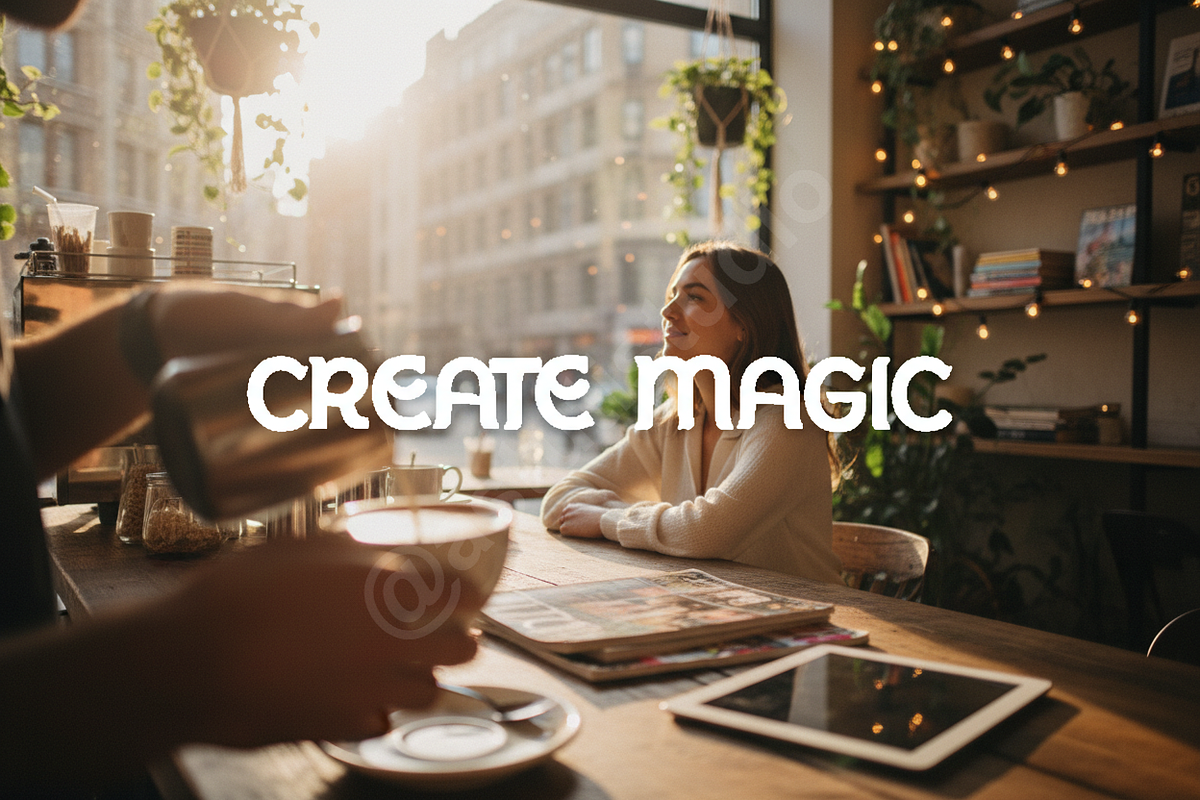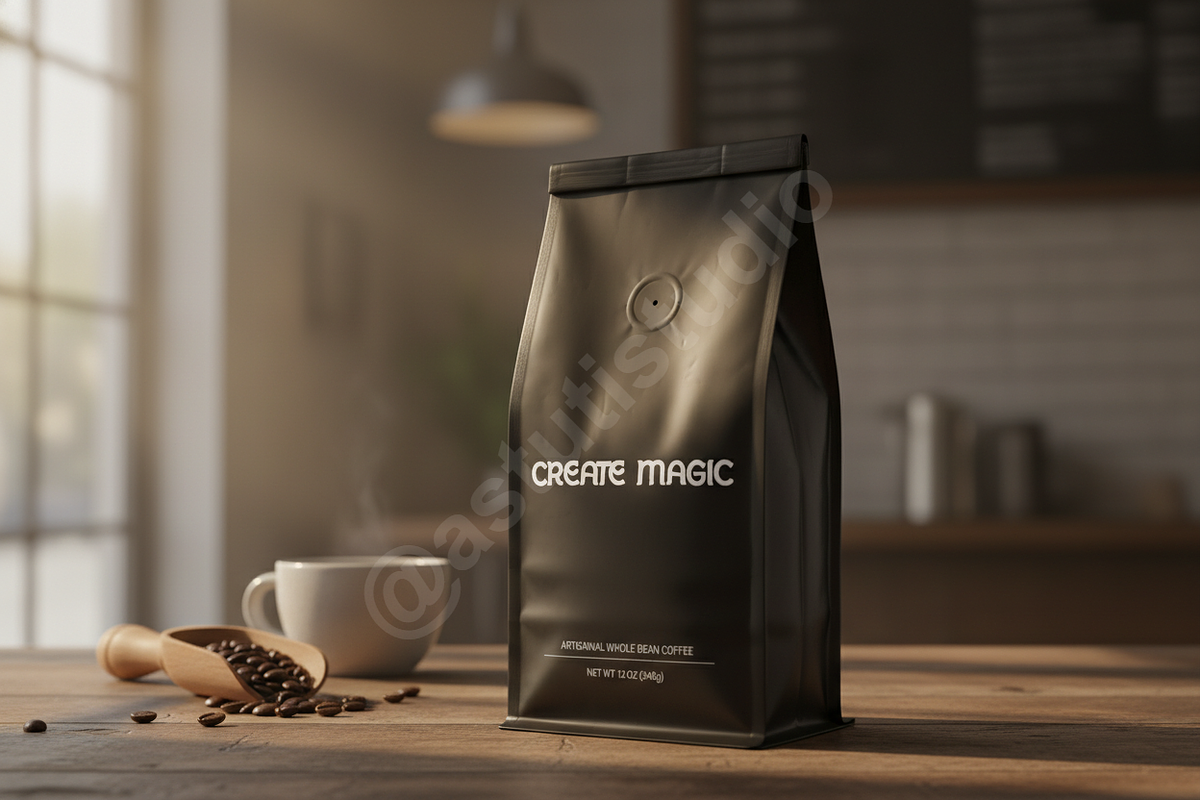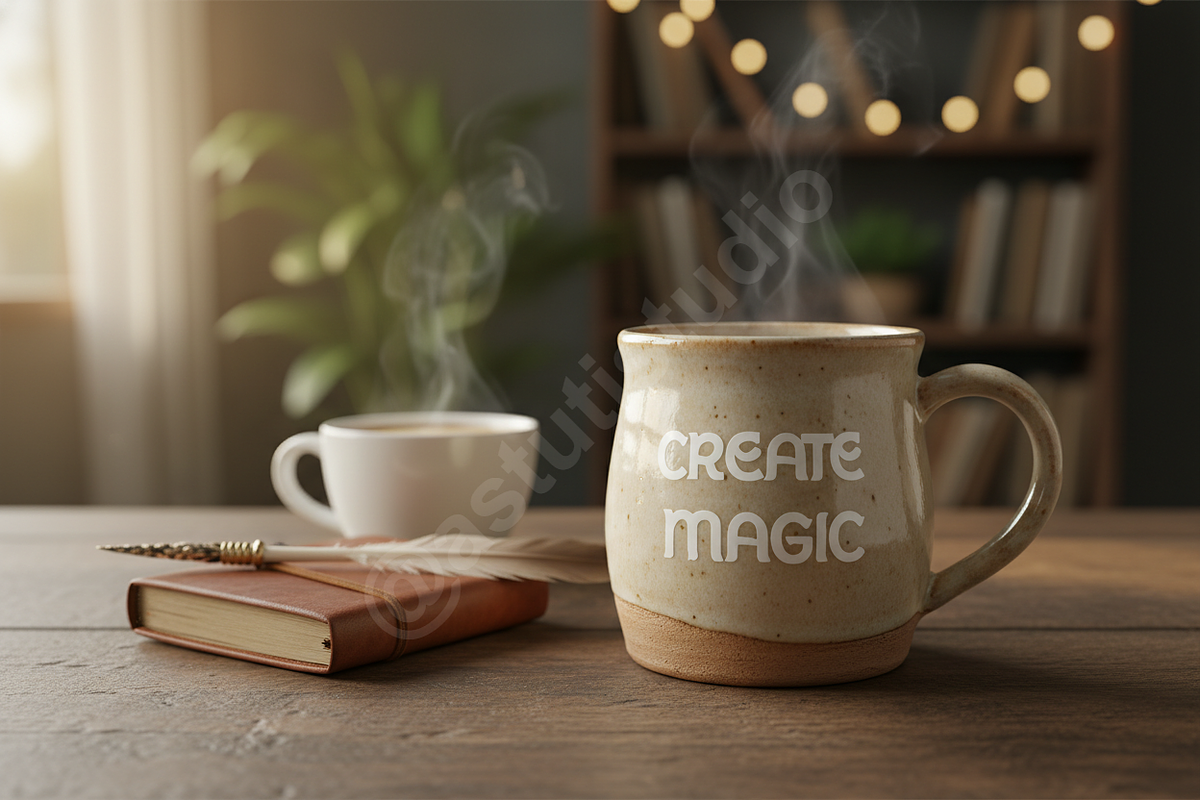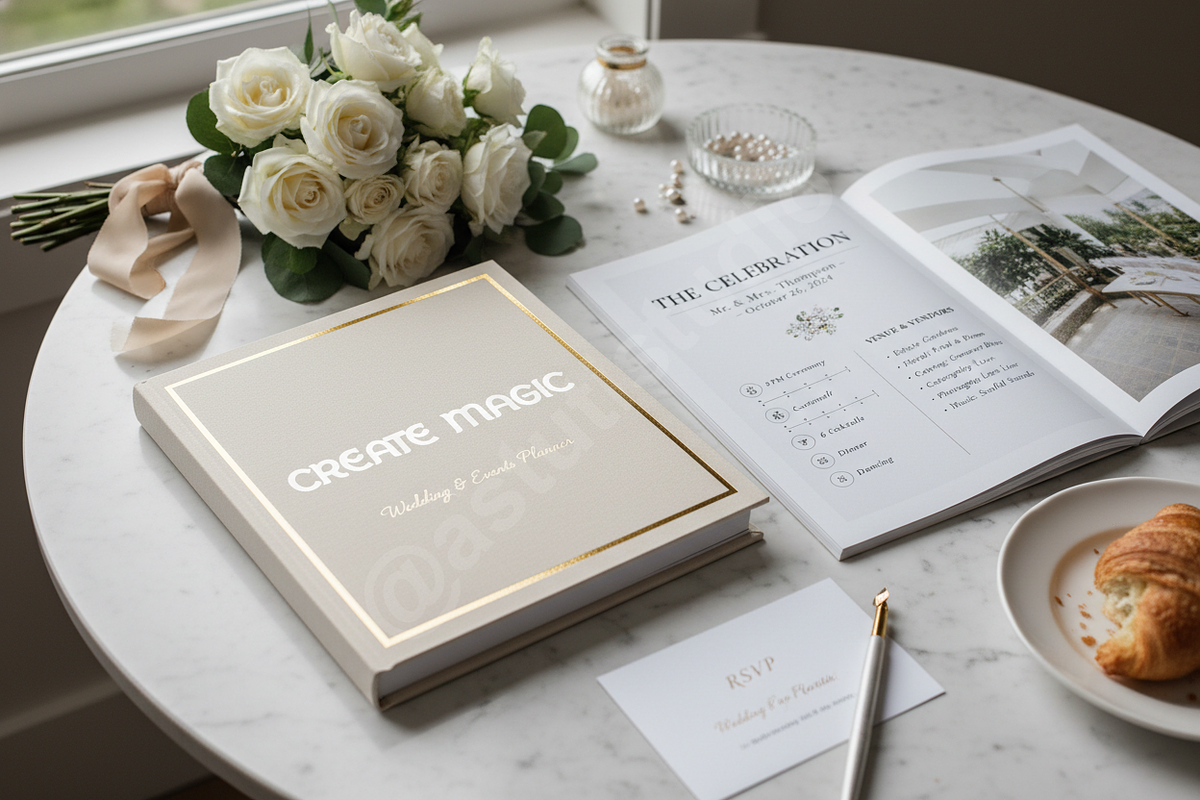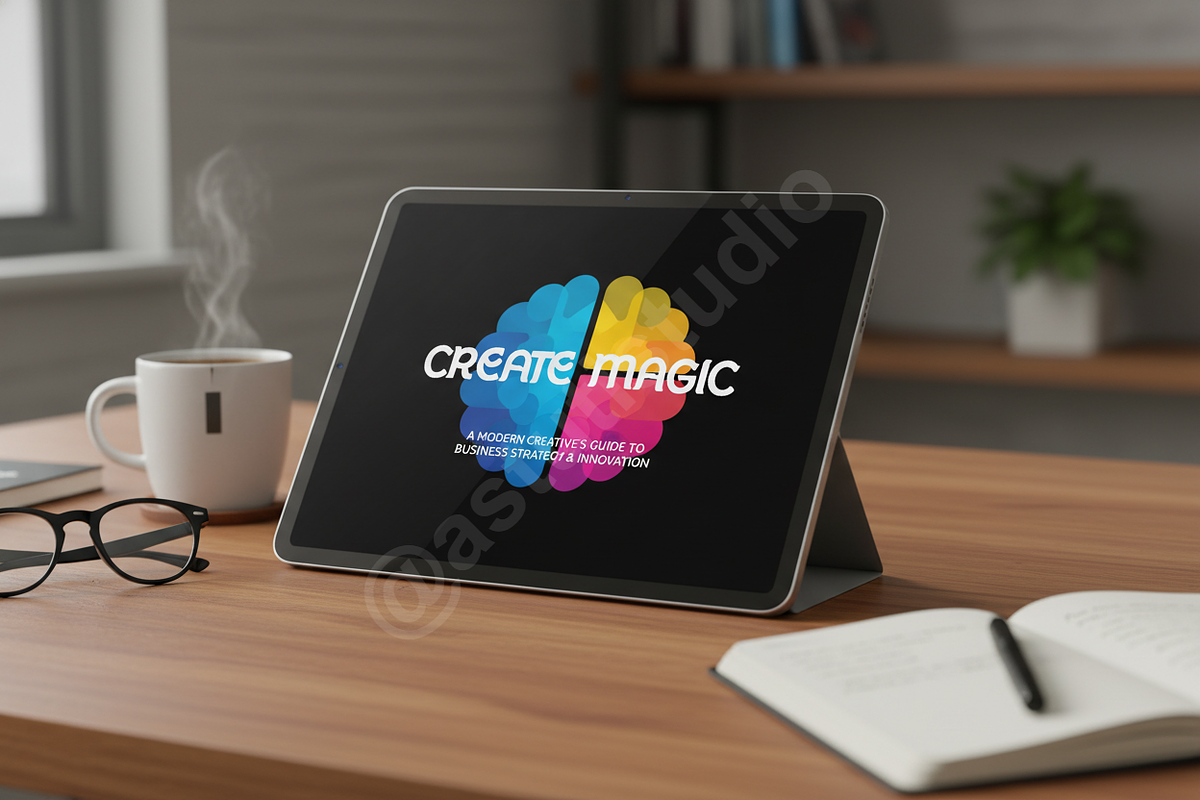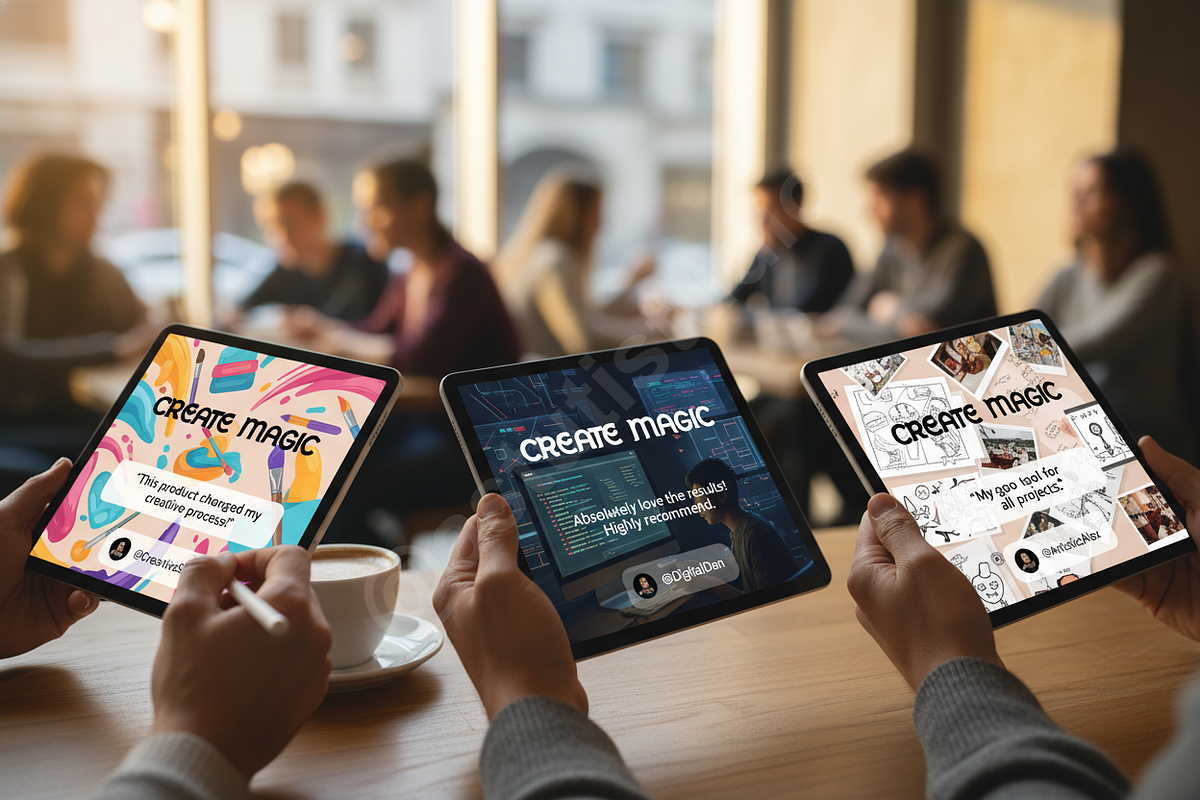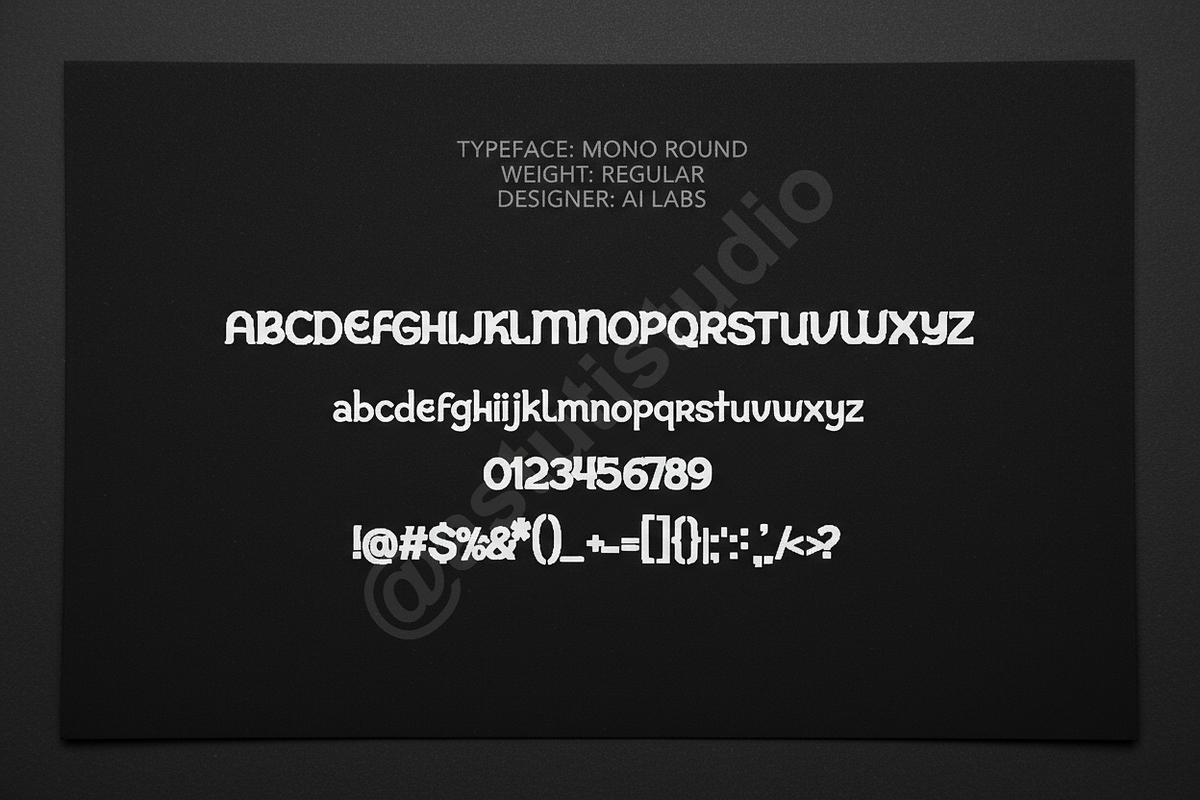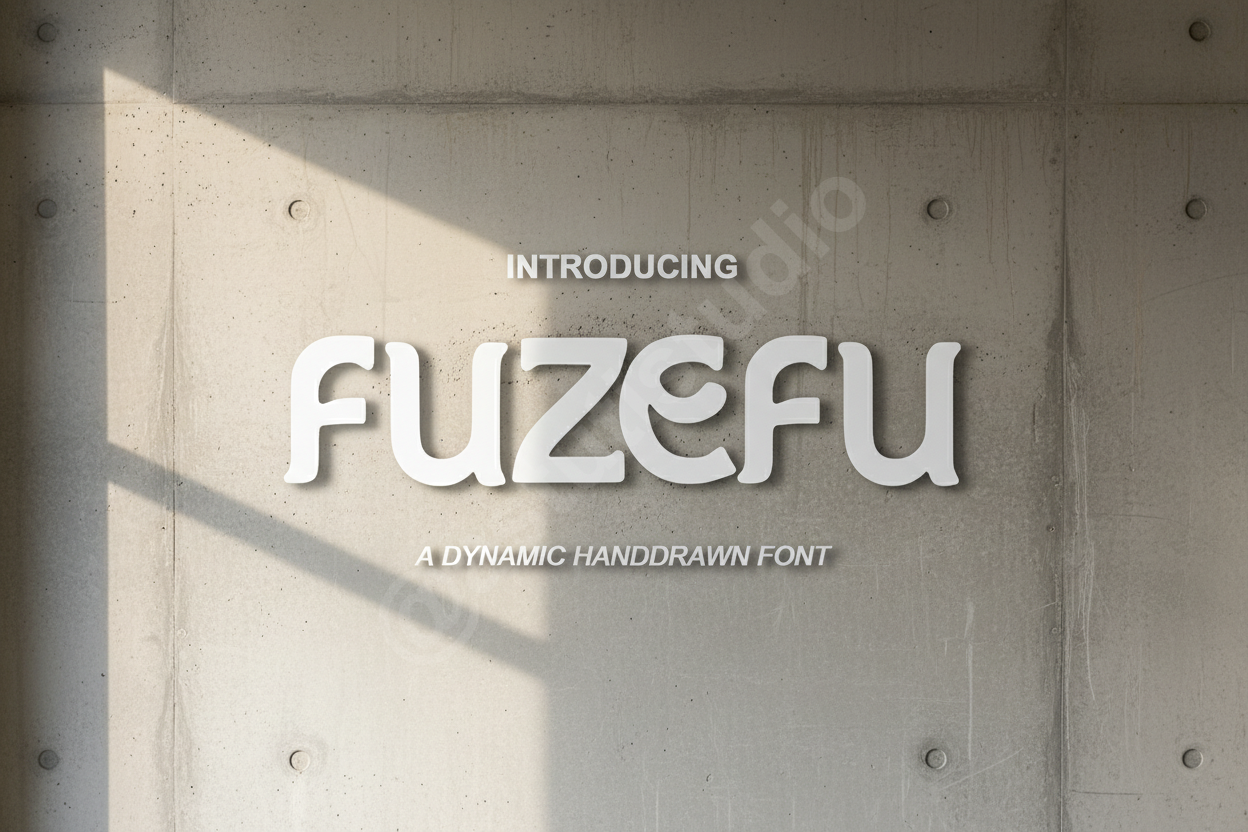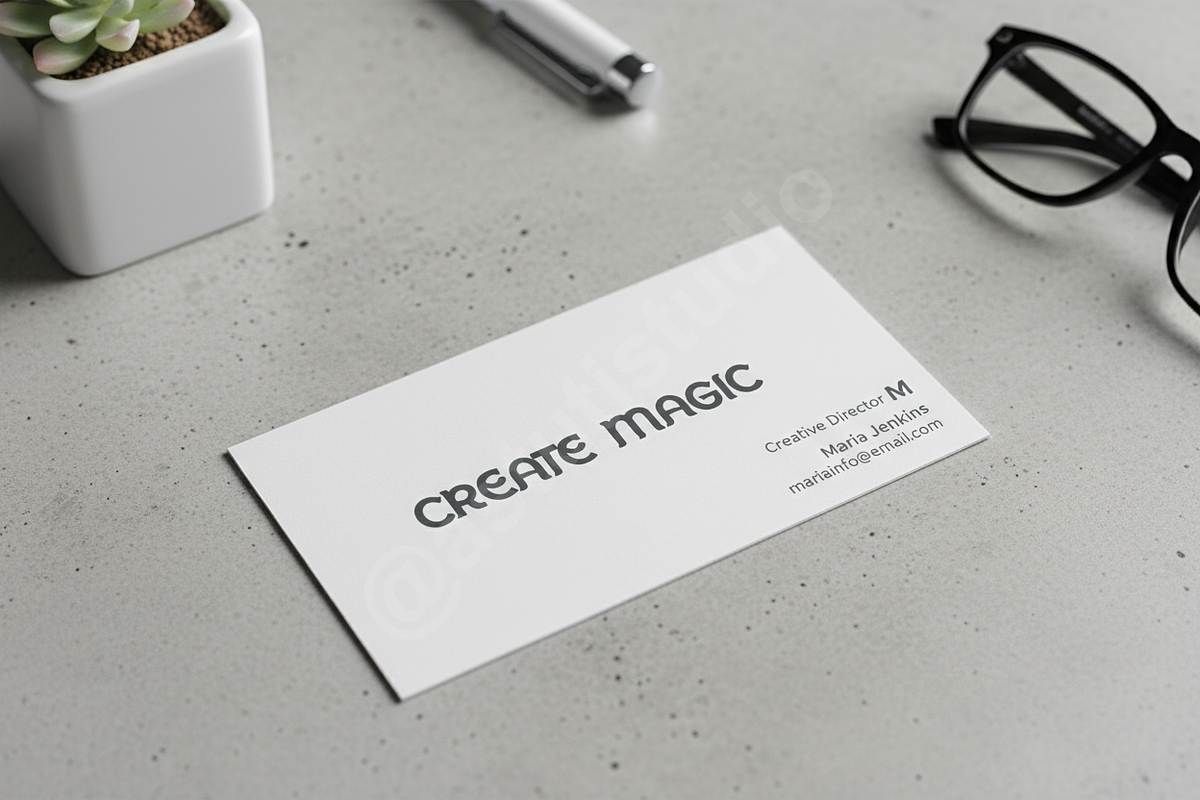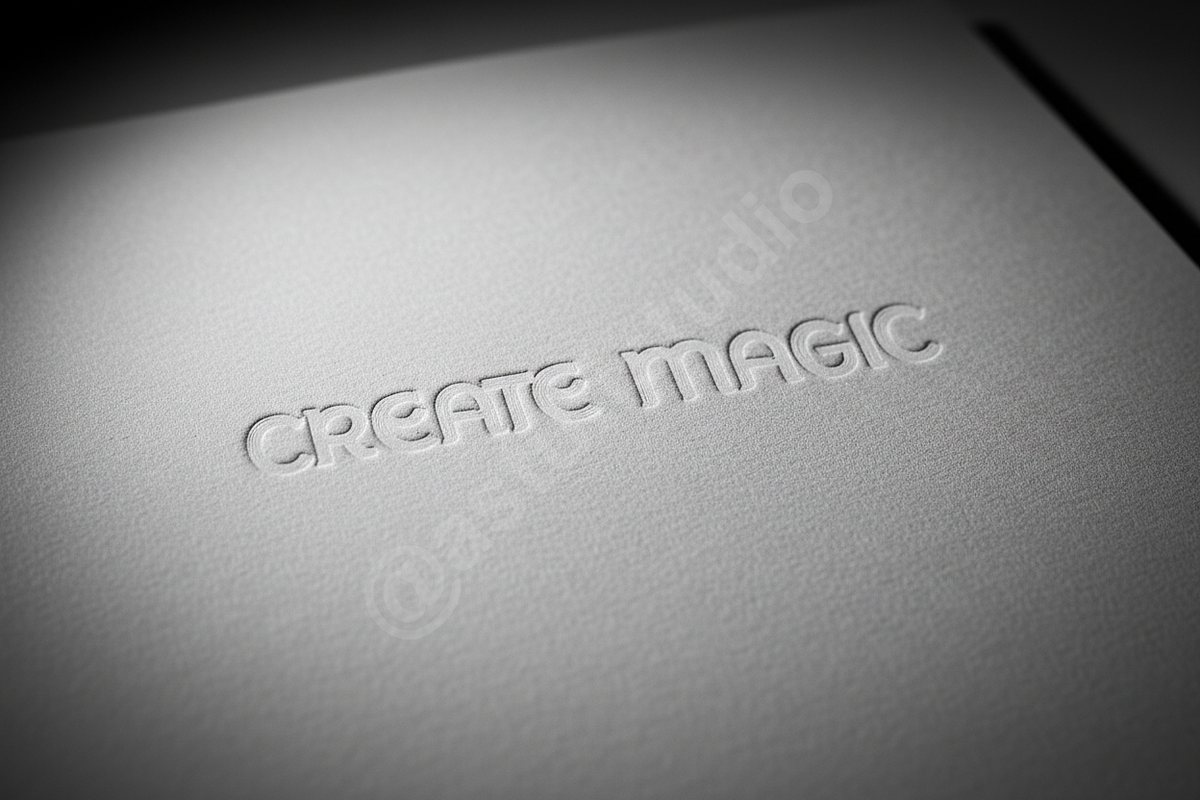
Fuzefu - Luxury Serif Font
Introduction: Fuzefu is an exquisite serif font meticulously crafted for designers who demand sophistication and timeless elegance. With its refined curves and distinguished presence, Fuzefu embodies luxury, making it the perfect choice for high-end branding, prestigious editorial layouts, and impactful social media campaigns. Elevate your designs with a touch of unparalleled class and premium studio quality.
Features: • Elegant Serif Design: A harmonious blend of classic serif structure with modern refinement. • Extensive Ligatures & Alternates: Enhance typography with a rich array of stylistic ligatures and alternate characters for unique customization. • Multilingual Support: Broad language coverage to ensure global reach and accessibility. • PUA Encoded: Fully accessible without additional design software. • OpenType Features: Designed with advanced OpenType functionalities for professional typographic control.